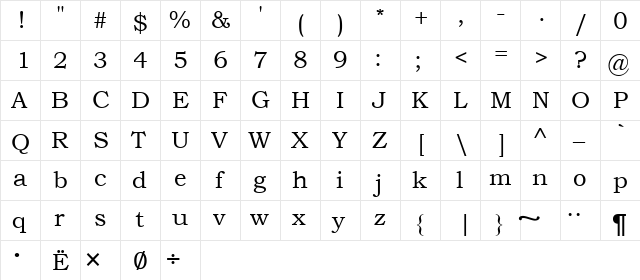
Menaion Regular
| Foundry | LCAPR, UdSU |
| Designer | V.Baranov |
Design Context for Menaion Typeface
Menaion offers clean, dependable letterforms without strong stylistic allegiance, making it a practical choice for designers who need flexibility.